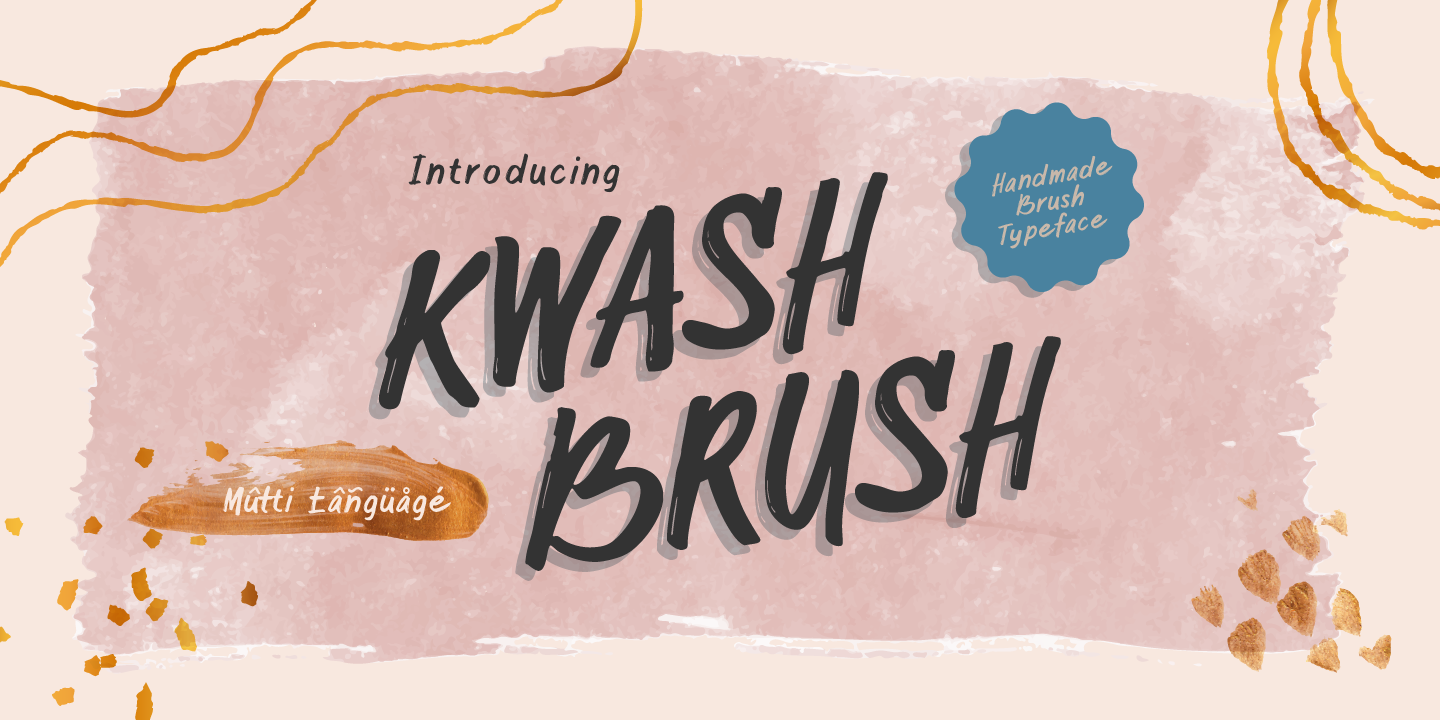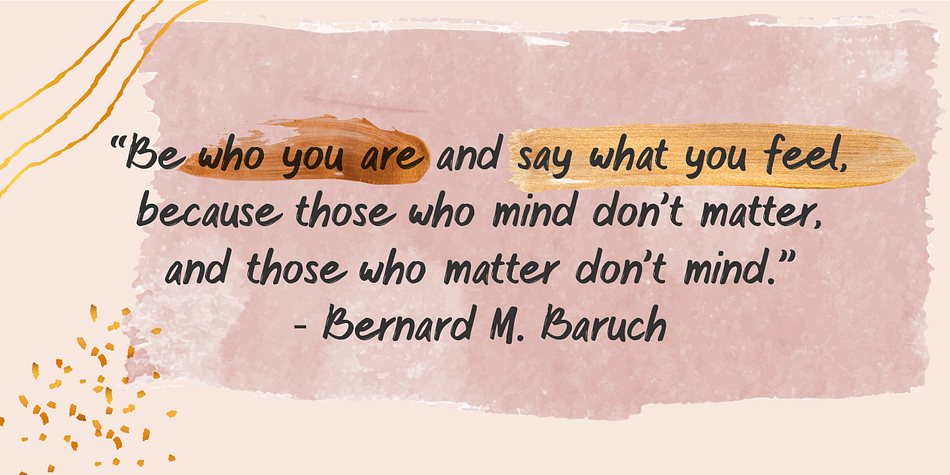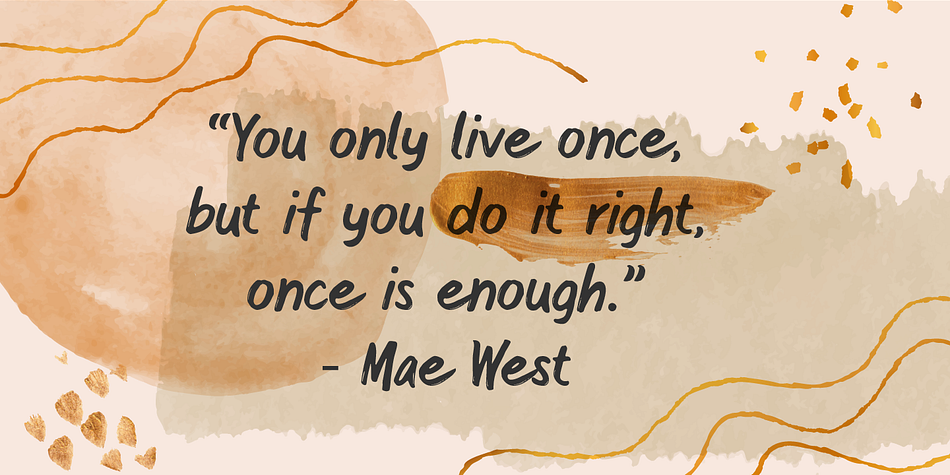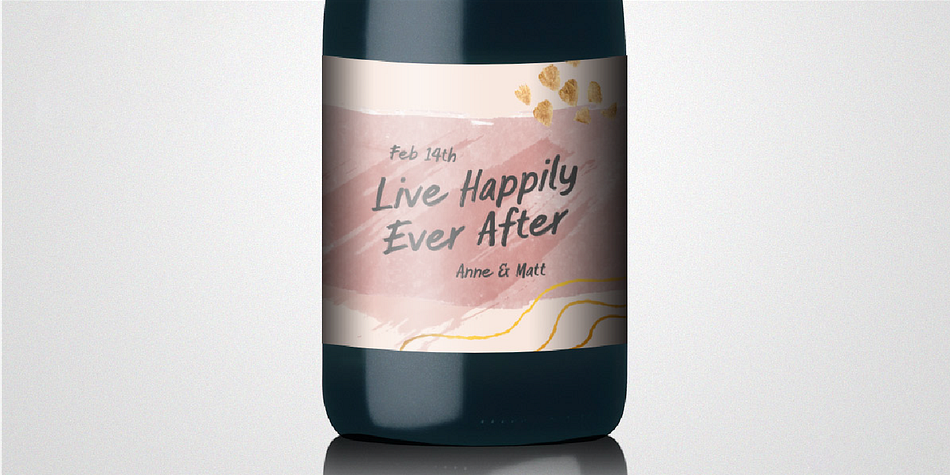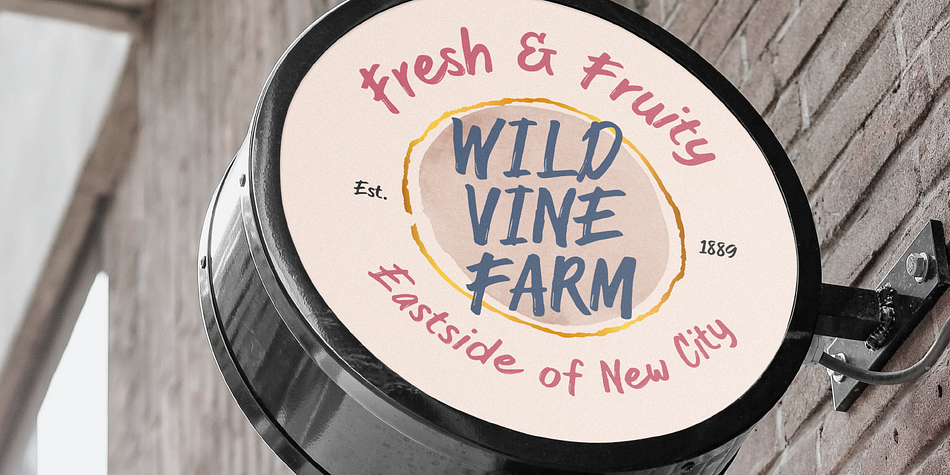
Designed by Rendy Yanwar, Kwash Brush is a brush display and hand drawn font published by Rendy Yanwar.
Introducing Kwash Brush! A handmade brush typeface, inspired by brush ink stroke character.
Kwash Brush is a handwritten brush font containing upper & lowercase characters, numerals and punctuation.
This brush font can be applied to any kind of purposes, from handwritten quotes, packaging merchandise, branding projects, etc.